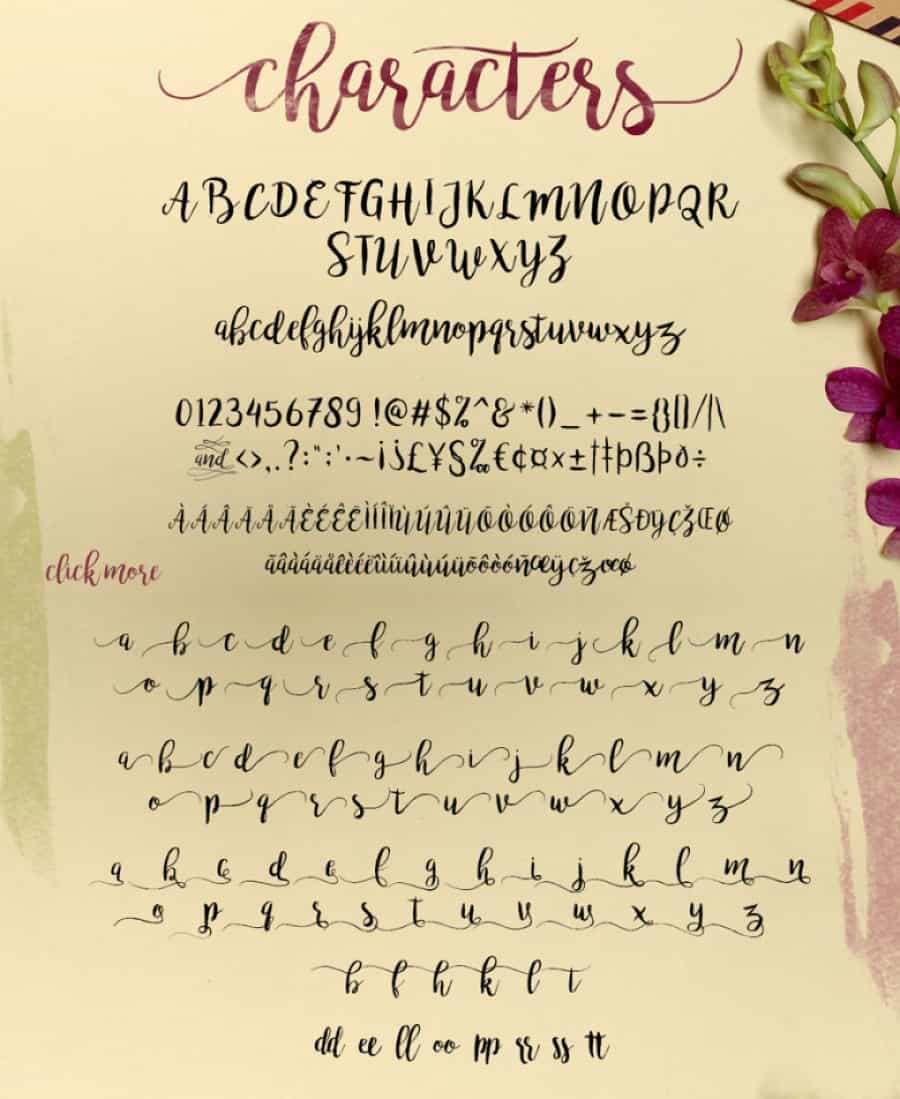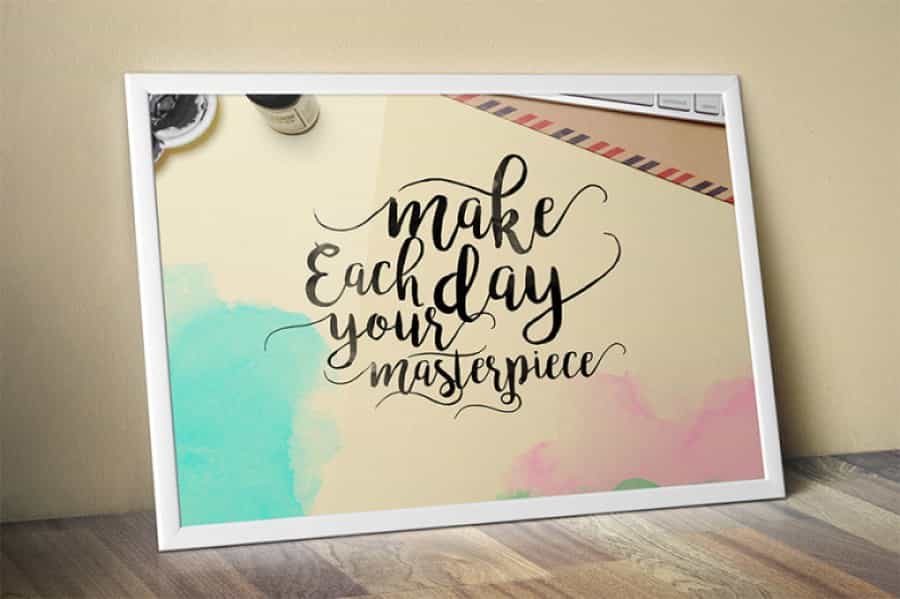
Bromello Font is a new handwritten font that was created in order to be applied to unique objects such as wedding invitations, layouts of scrapbooks, logos, headers of sites and clothing. Alit Design kindly has shared this freebie!